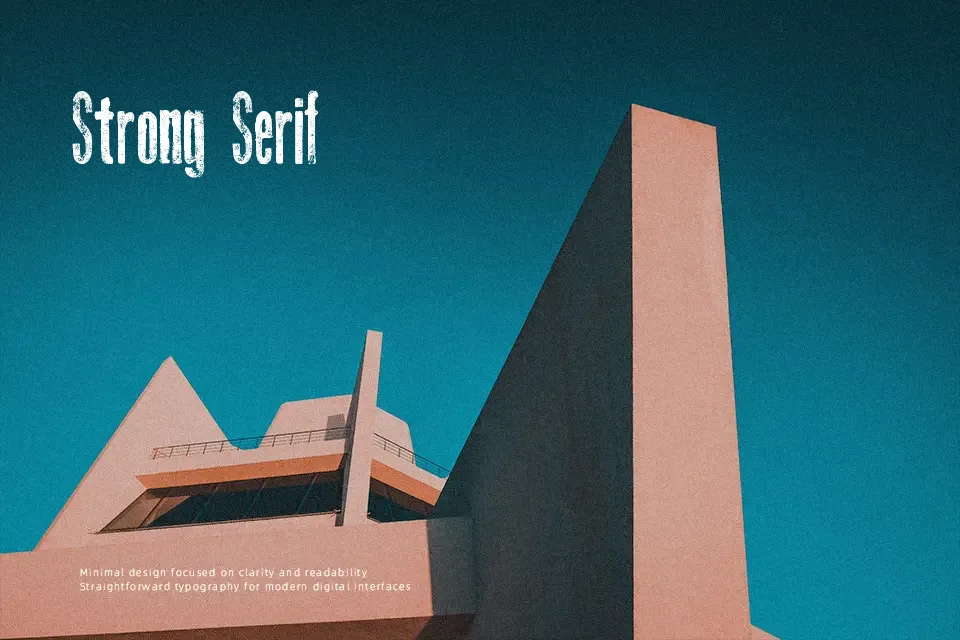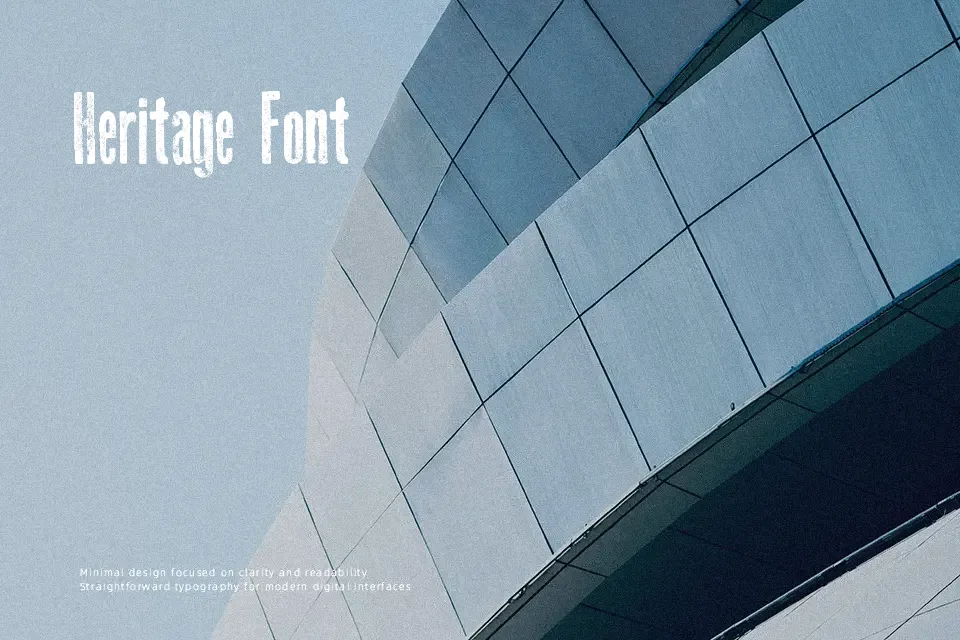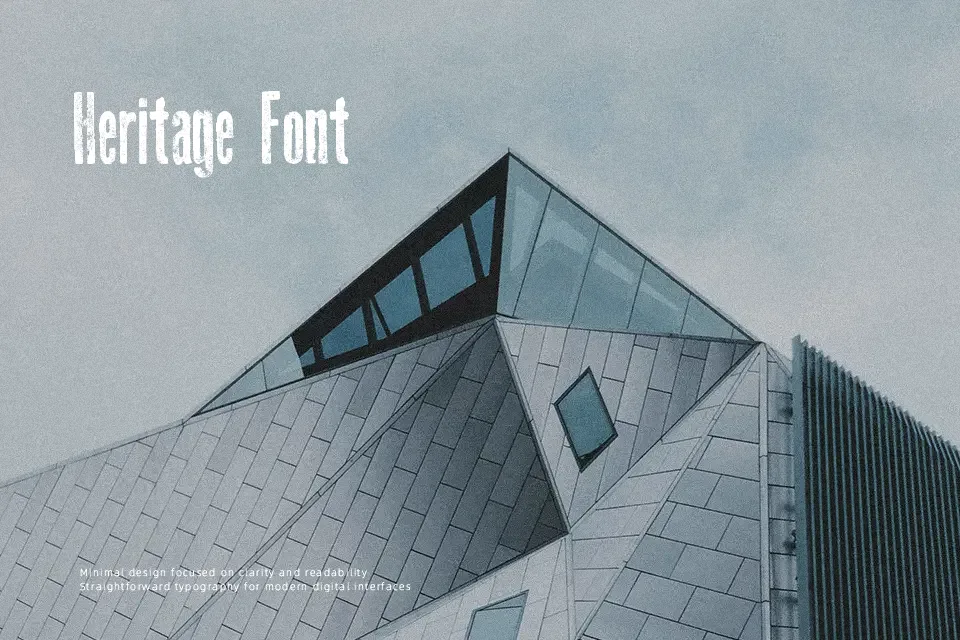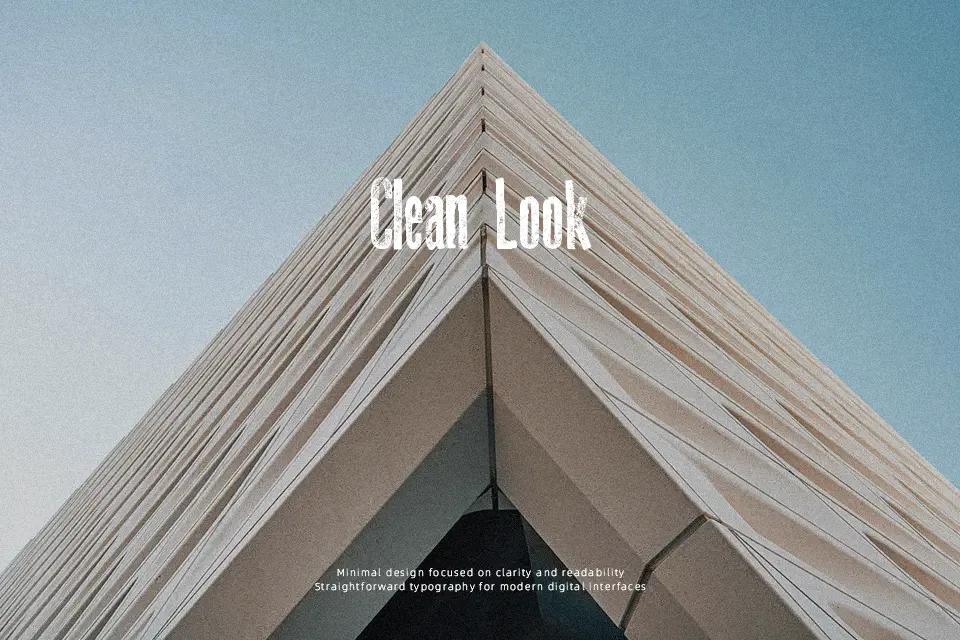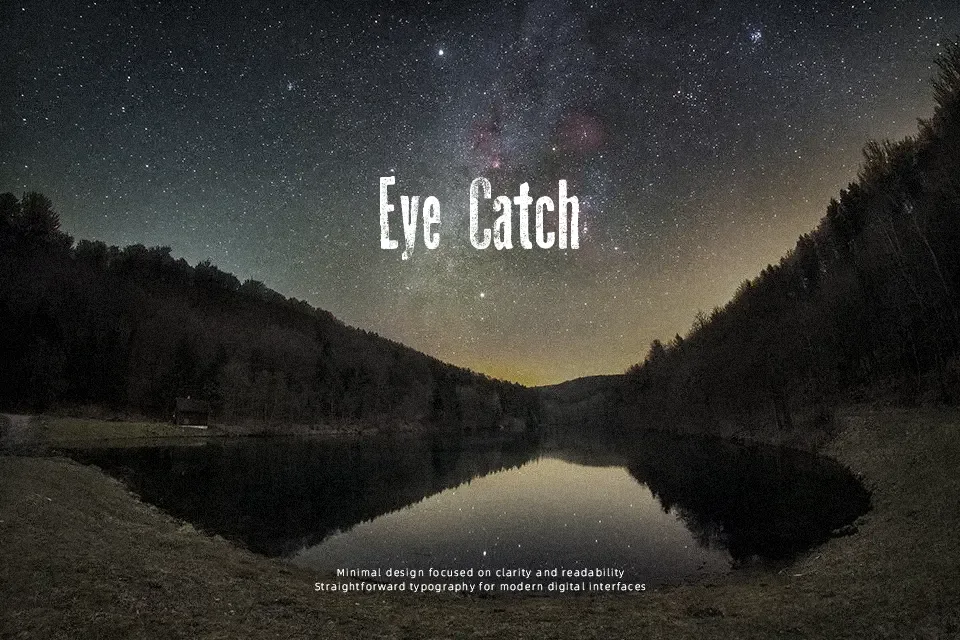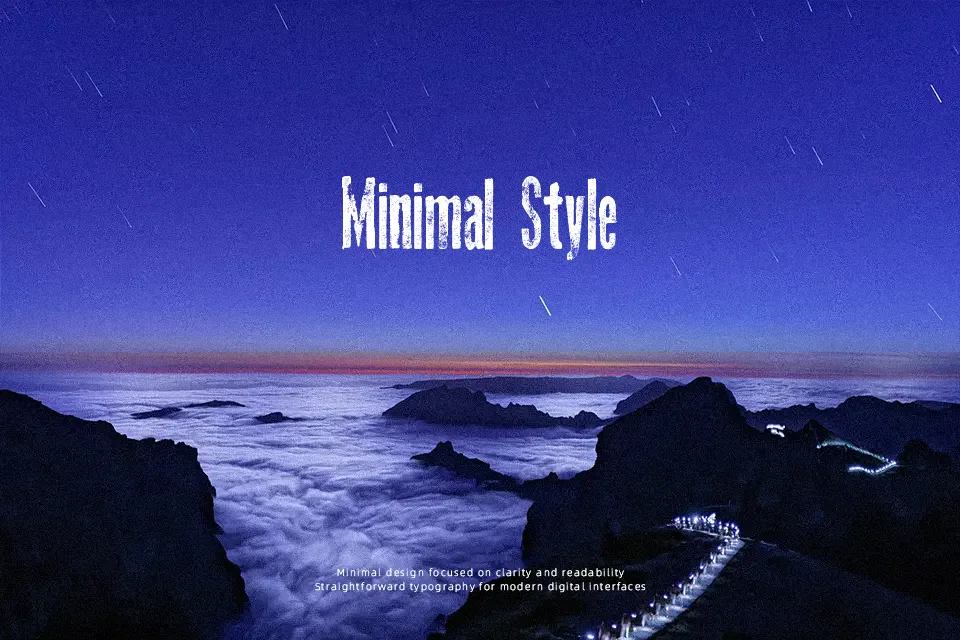
Thin Press Font
Thin Press Font combines a tall, condensed architecture with irregular subtractive erosion scattered across slender linear strokes. The letterforms display uniform vertical dominance and tight character spacing, creating a dense rhythm when assembled into display titles. Open counters preserve basic character recognition across upper and lowercase alphabets, yet the granular distressing and slim stem weights compromise legibility at smaller text scales. In practical application, the typeface excels across album jackets, artisanal brand emblems, and large event headlines where its aged print texture commands attention. Continuous paragraph settings suffer from optical vibration, making the design unsuitable for extended body reading or compact technical layouts.
Best For: vintage product packaging, music festival posters, apparel graphics, album covers
Not Ideal For: long paragraph text, small interface labels, corporate reports, mobile app body copy
Perfect for branding, headline, and music, with a grunge and condensed style.